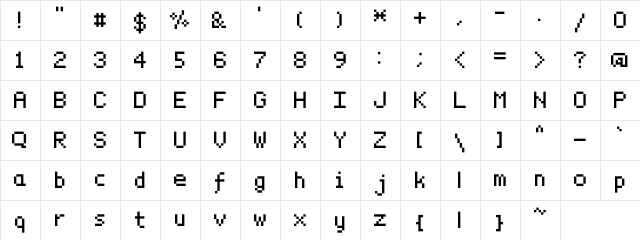
dymsmall Regular
Design Context for dymsmall Typeface
dymsmall offers clean, dependable letterforms without strong stylistic allegiance, making it a practical choice for designers who need flexibility.